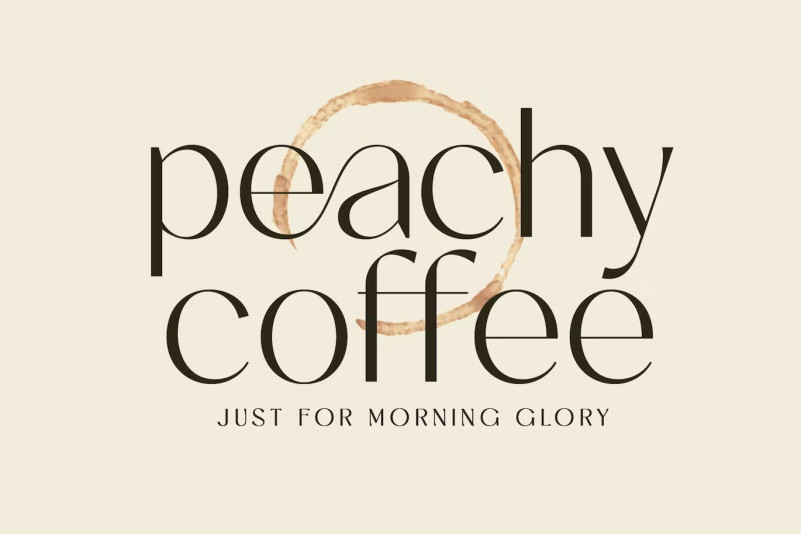
Steva Font
Steva Font is a sleek, minimalistic modern font with beautiful ligatures, tons of special alternate glyphs, and multilingual support. It’s a very versatile font that works great in both large and small sizes. Perfect for branding projects, Logo design, apparel brands, product packaging, magazine headers, or simply as a stylish text overlay to any background image.